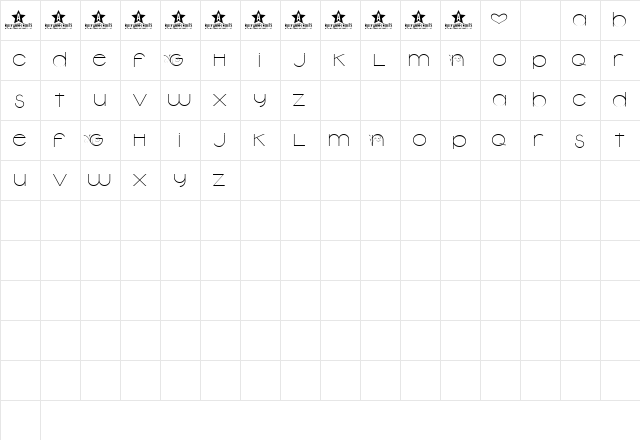
New Garden Light Font Preview
New Garden Light
New Garden Light Font Details
| Foundry | Billy Argel |
| Designer | Billy Argel |
Design Context for New Garden Typeface
New Garden offers clean, dependable letterforms without strong stylistic allegiance, making it a practical choice for designers who need flexibility. The delicate stroke weight brings airiness and refinement to layouts.